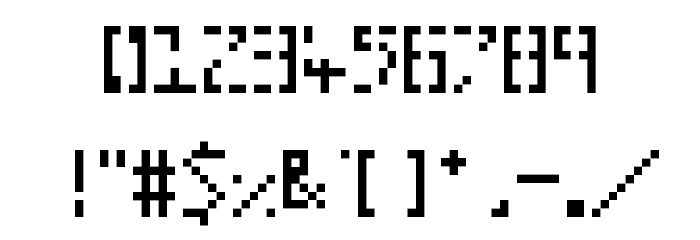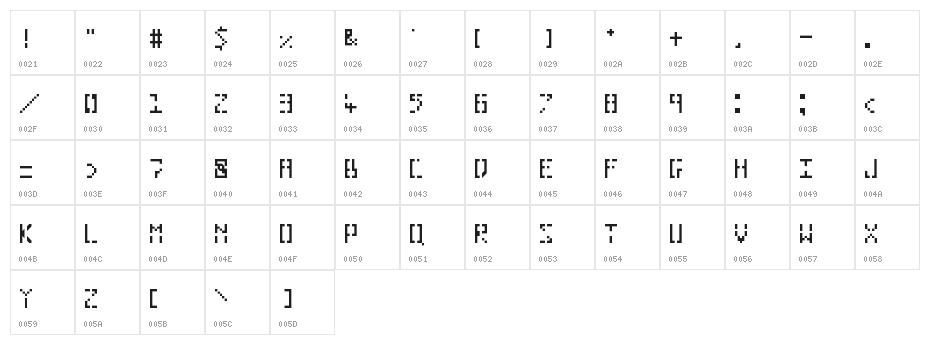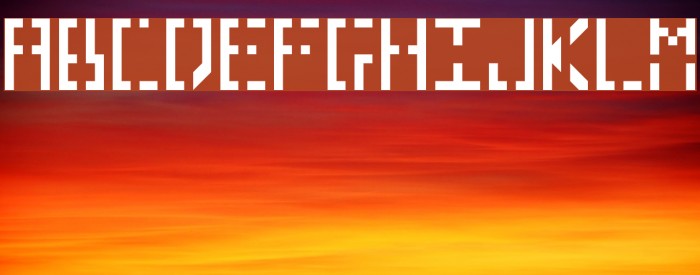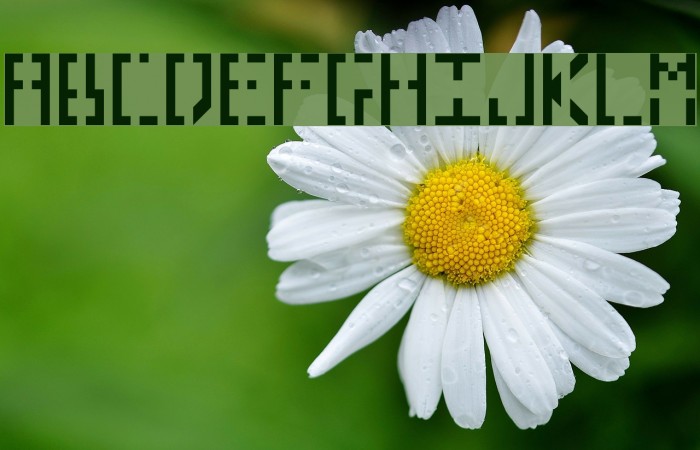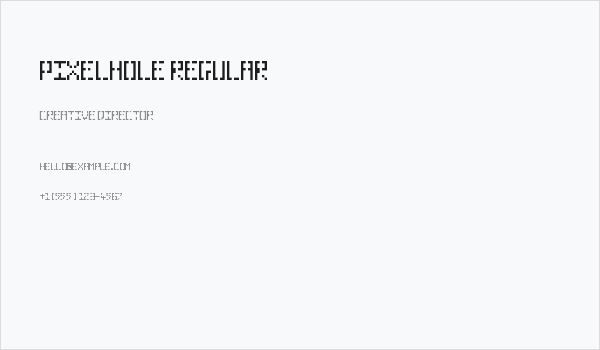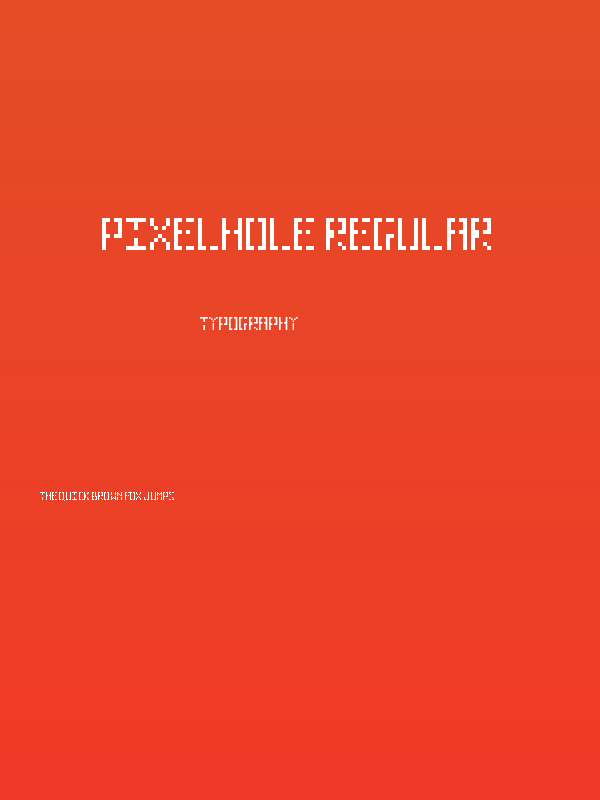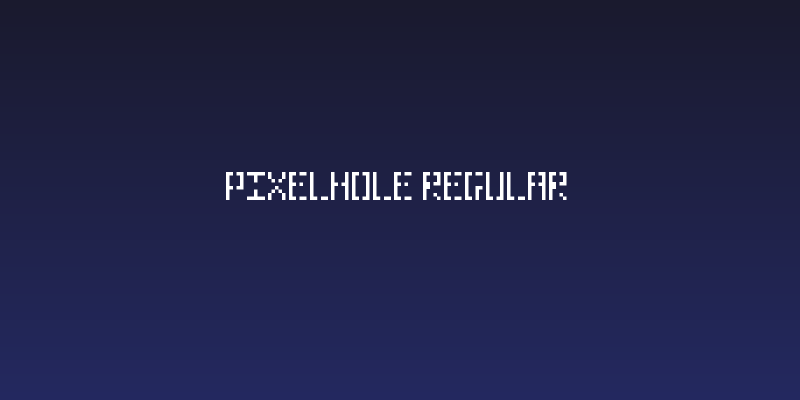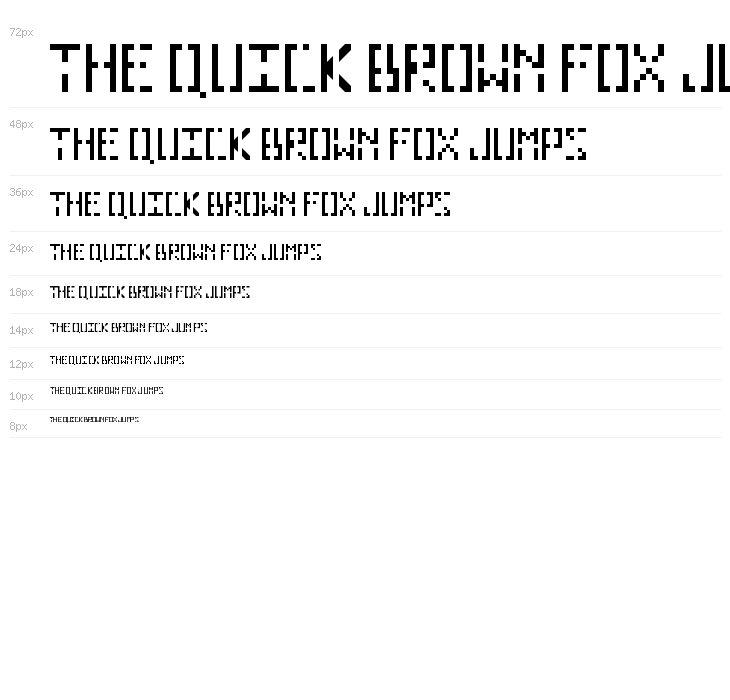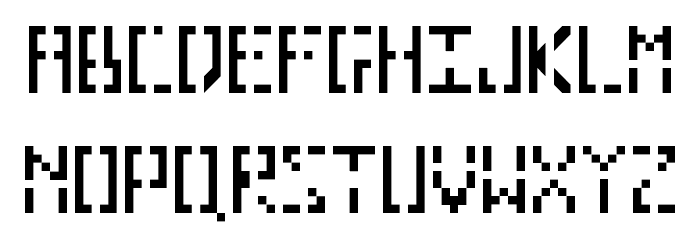
Pixelhole Regular Font
Pixelhole Regular Description
This font features a distinct pixelated style, reminiscent of early digital displays and retro video games. Each character is constructed with a grid-like precision, giving it a blocky and geometric appearance. The uppercase and lowercase letters maintain a consistent height, contributing to a uniform look across the text. Numbers and special characters follow the same pixelated design, ensuring a cohesive visual experience. The font's simplicity and clarity make it ideal for digital-themed projects or designs that aim to evoke nostalgia for classic computing aesthetics.
Overall StyleRetro, Digital
Use CaseLogos, Headlines, Digital Art
Proposed ProjectsIdeal for retro video game graphics, digital art projects, tech-themed posters, and nostalgic branding.